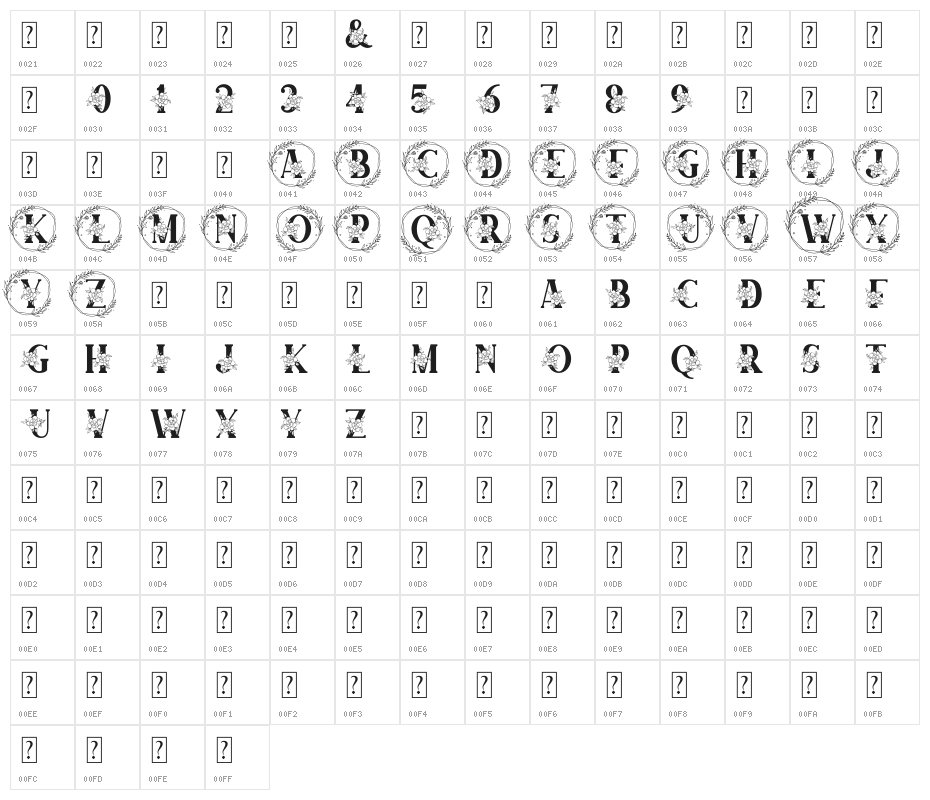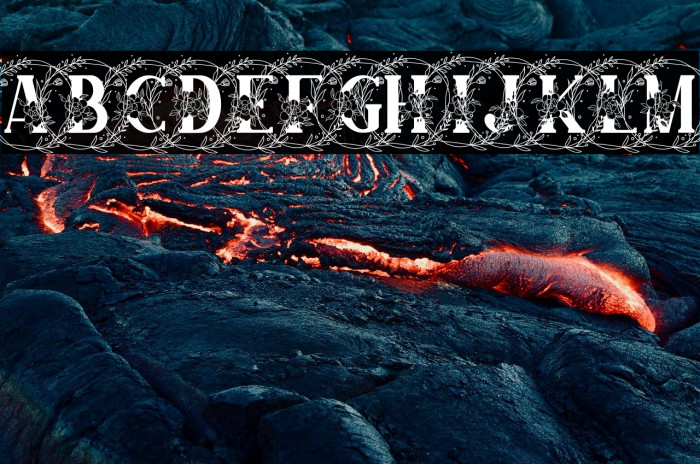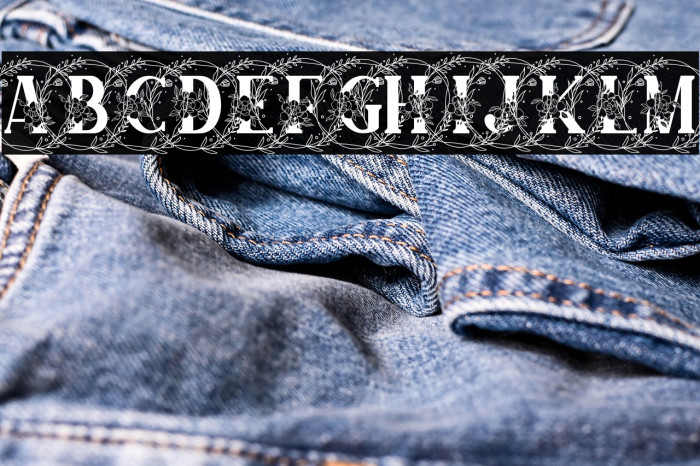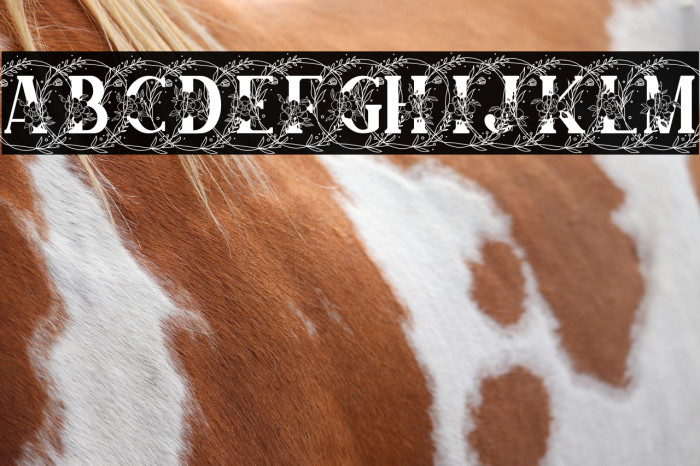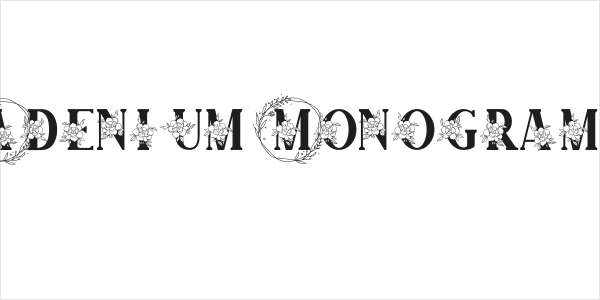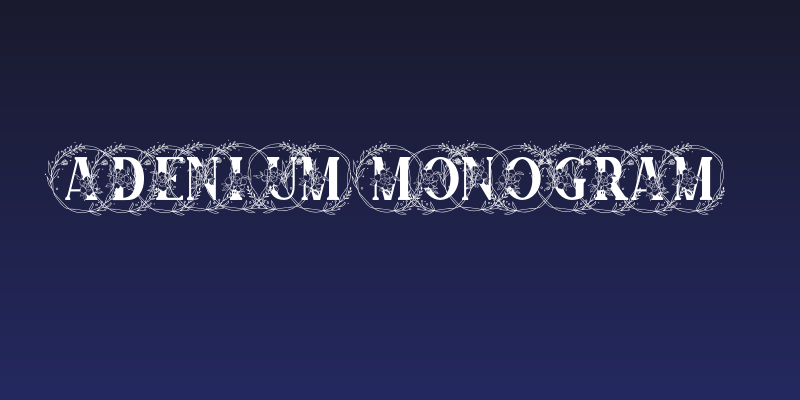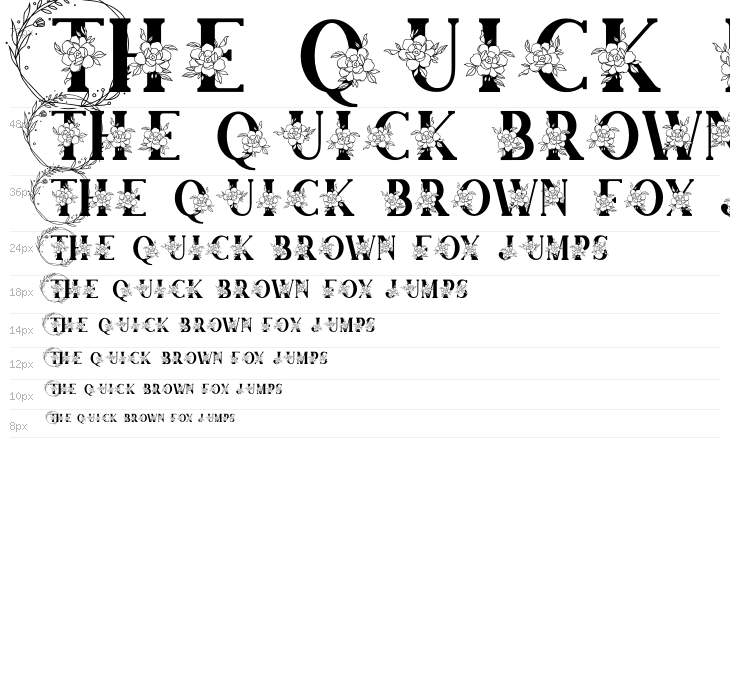
Adenium Monogram Font
Adenium Monogram Description
This font features an elegant and decorative style, incorporating floral elements intertwined with each character. The uppercase and lowercase letters are adorned with intricate floral designs, creating a sophisticated and artistic appearance. The numerals and special characters also follow this decorative theme, making the font suitable for projects that require a touch of elegance and creativity. The overall design is cohesive, with each character maintaining a balance between the decorative elements and readability.
| Proposed Projects | Ideal for wedding invitations, greeting cards, luxury branding, and decorative monograms. |